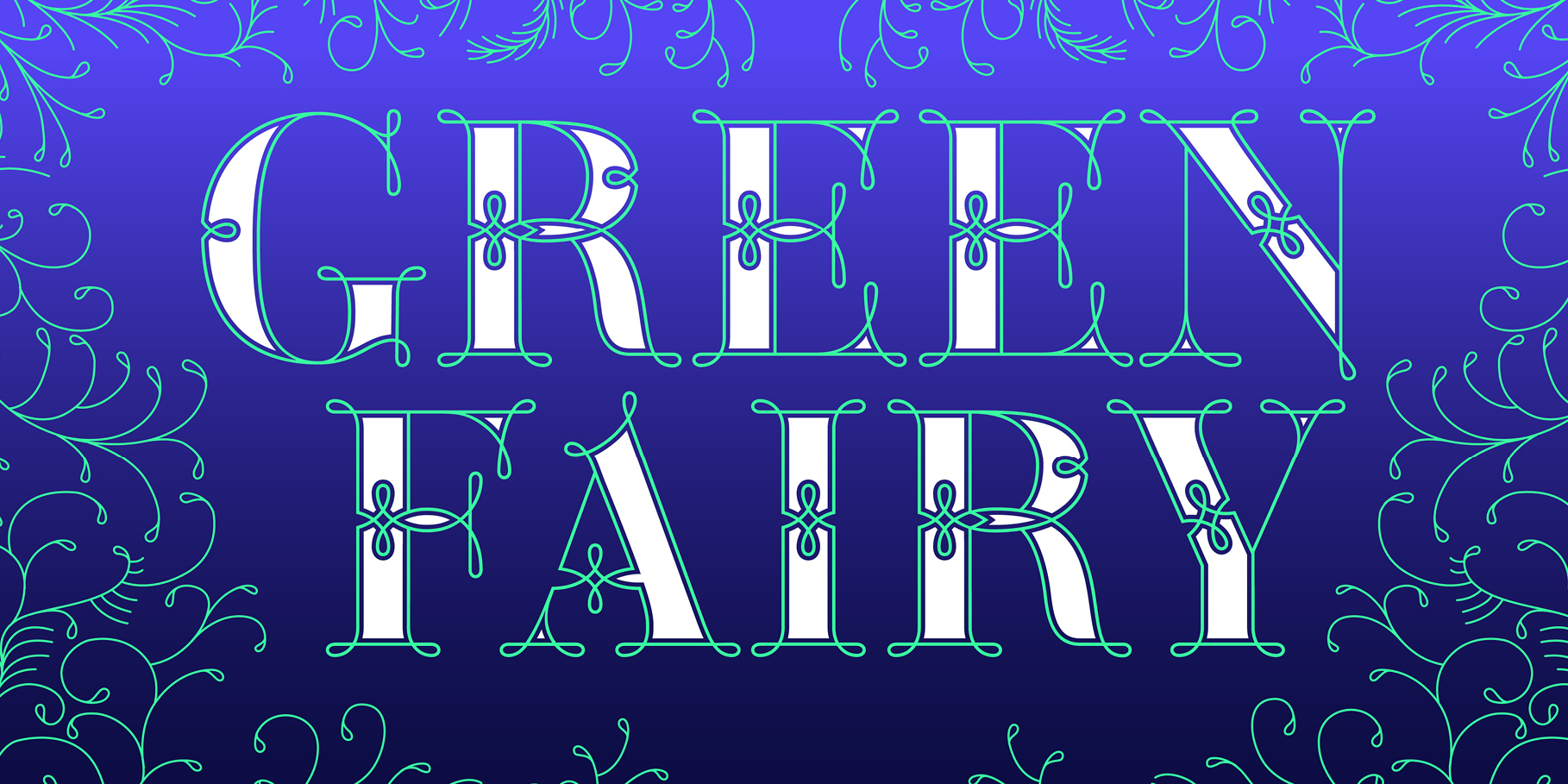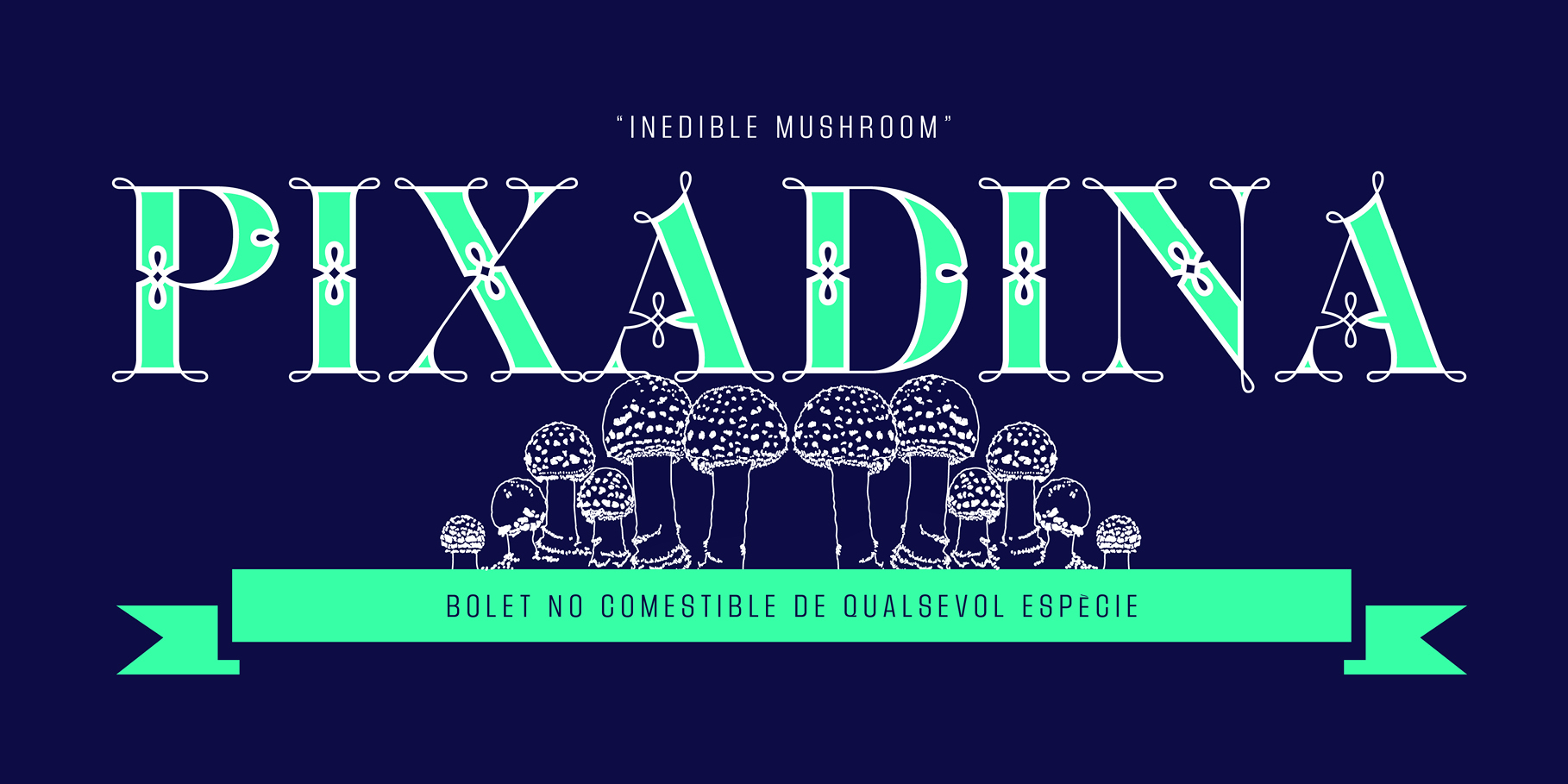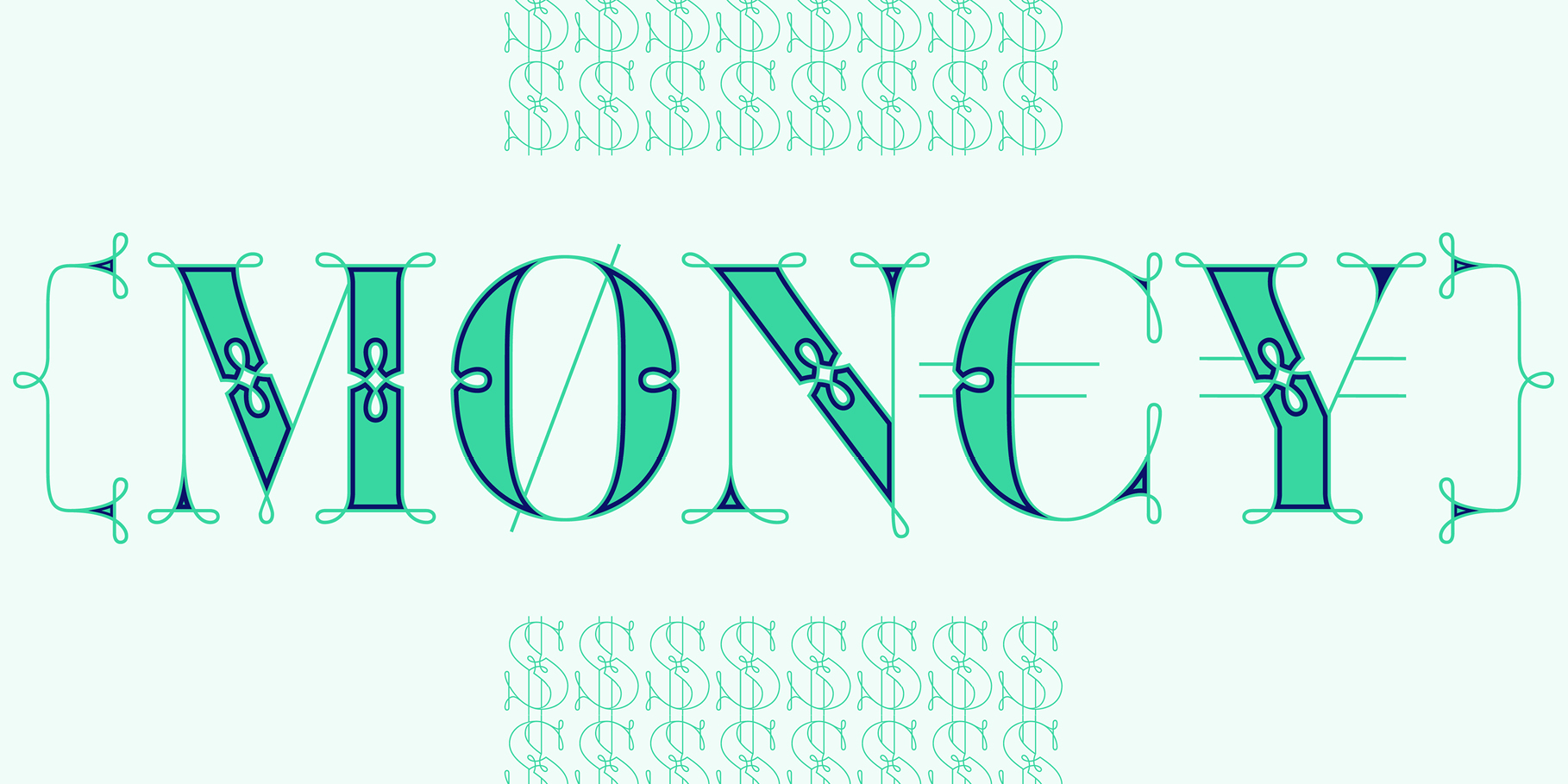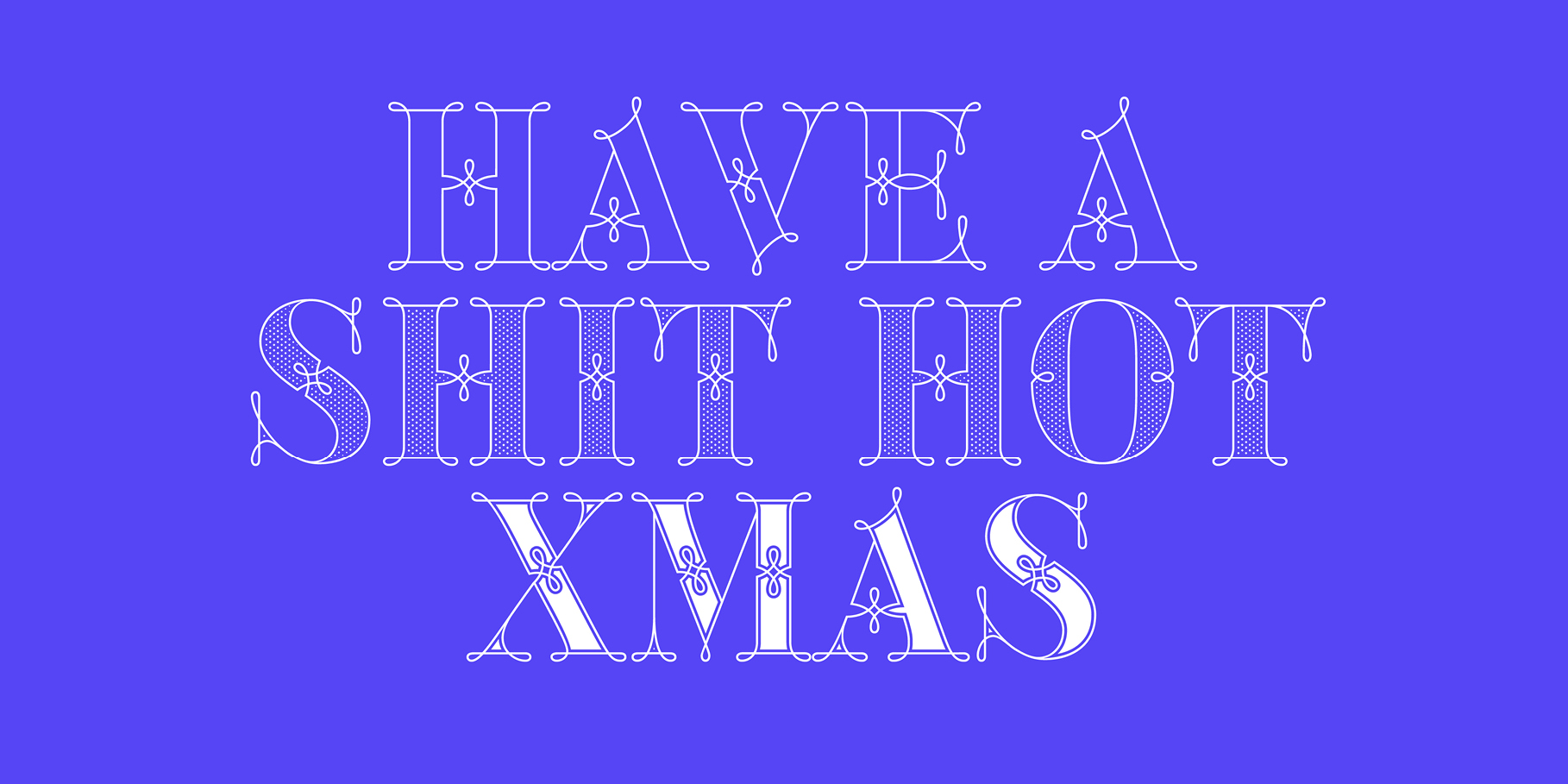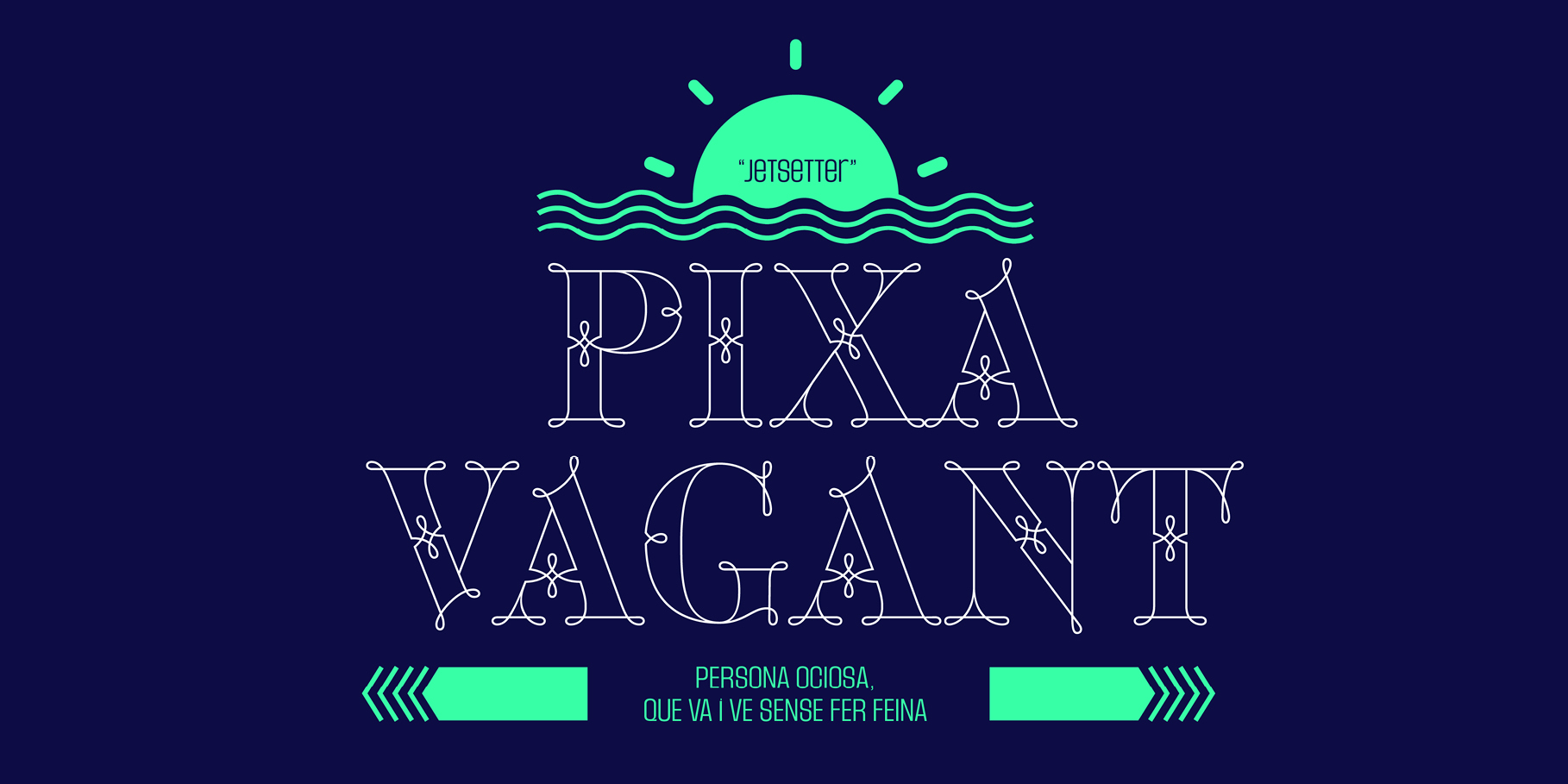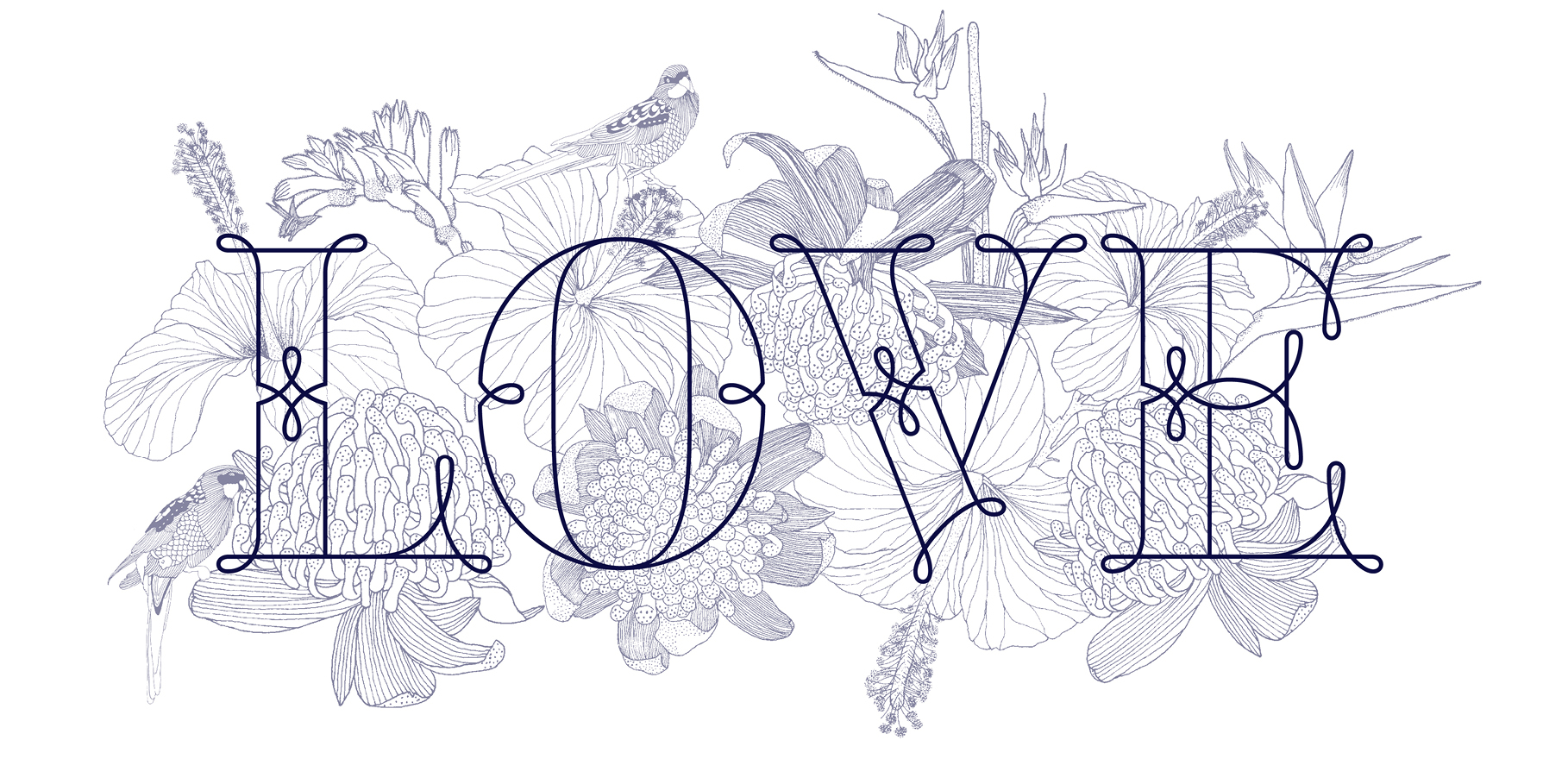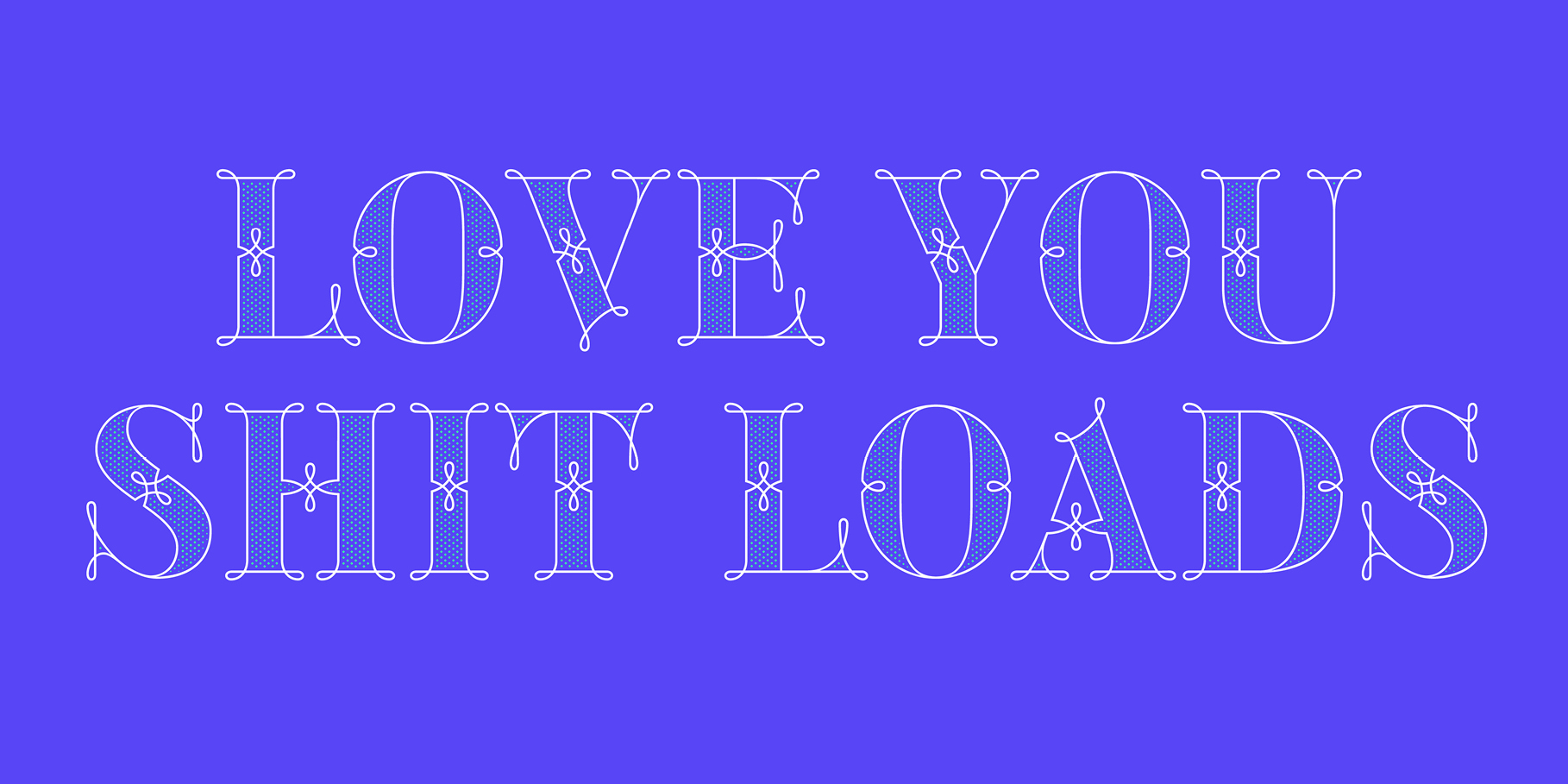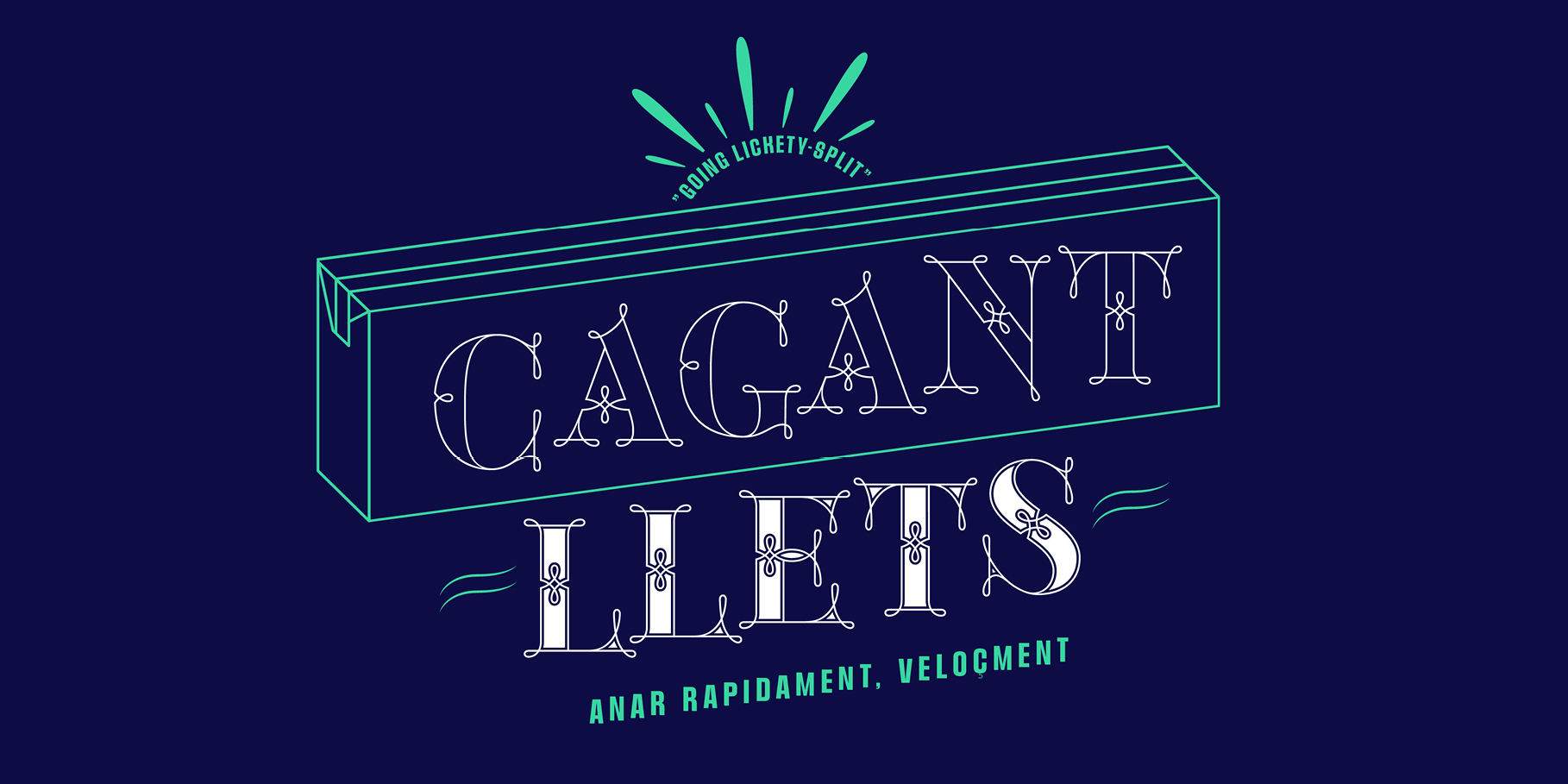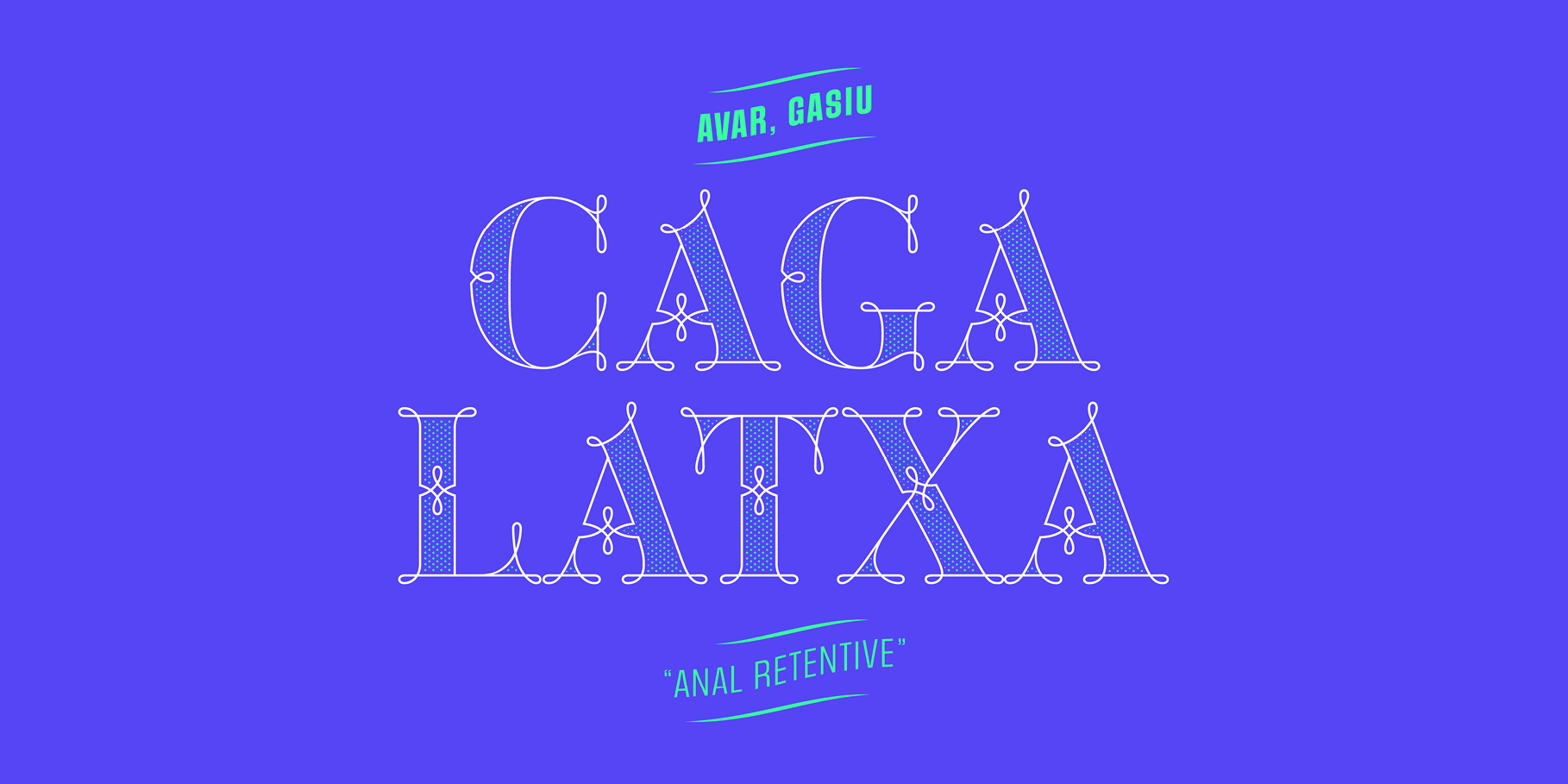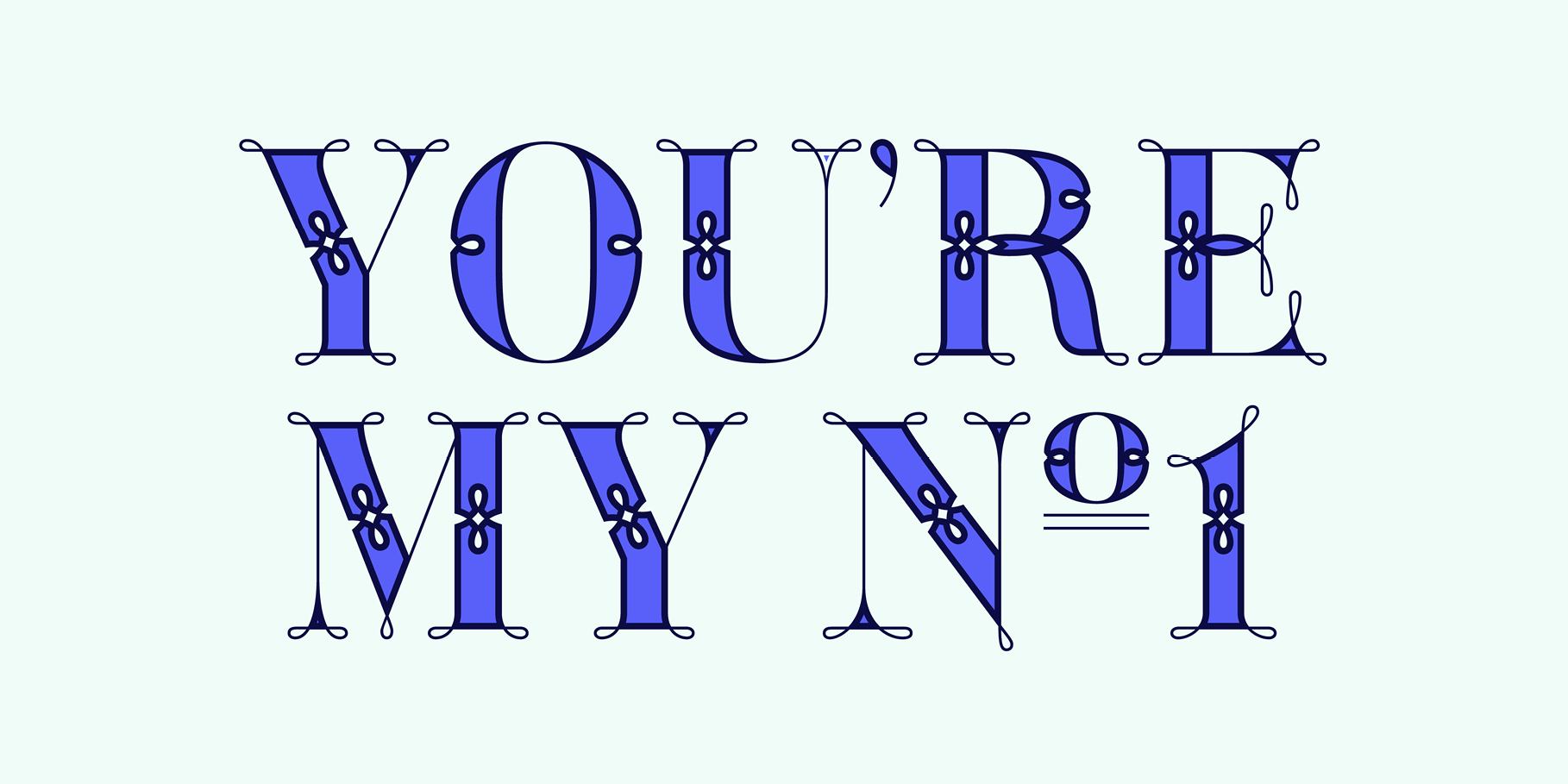
Green Fairy is a chromatic font family highly ornamented for display purposes. As its name suggests, this font has a sweet aroma inspired by the classic French Absinthe ritual. Green Fairy’s characters have been specifically designed to accommodate its loops following a modern typeface structure.
The font family has four chromatic weights:
1. Green Fairy Outline
2. Green Fairy Dots
3. Green Fairy Stencil
4. Green Fairy Full
The first one has been created as the base for the other styles. You can combine these weights as well as add colours to obtain multiple effects and type styles.
Green Fairy has also three combined weights (combos) to simplify your work flow, for these occasions when you only want to use one single colour in your font:
5. Green Fairy Dots Combo
6. Green Fairy Stencil Combo
7. Green Fairy Full Combo
Green Fairy Dots has a half-tone appearance at smaller sizes. Its dots have been built from diamond shapes to reduce the amount of anchor points and increase render efficiency. It is strongly recommended to use this specific weight starting from 48 points, being 96 points and above the optimum sizes for display purposes.
Chromatic fonts are equipped with multiple layers to be stacked on top of each other to create a multi-colour effect. Using Green Fairy to create chromatic effects is easy:
1. Set your type in Green Fairy’s Outline style to start with
2. Duplicate the type layer and then change its weight and colour
3. Repeat for each font weight and colour desired